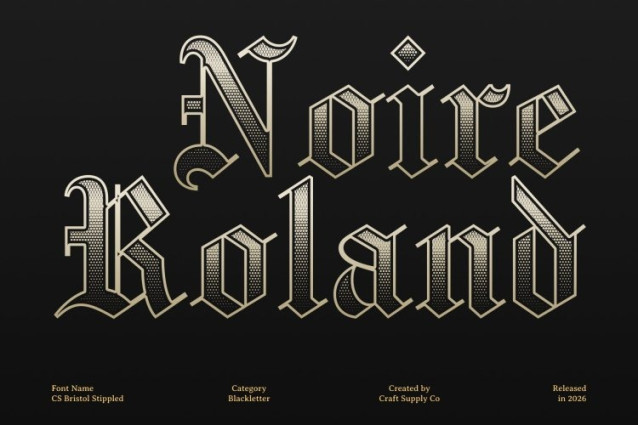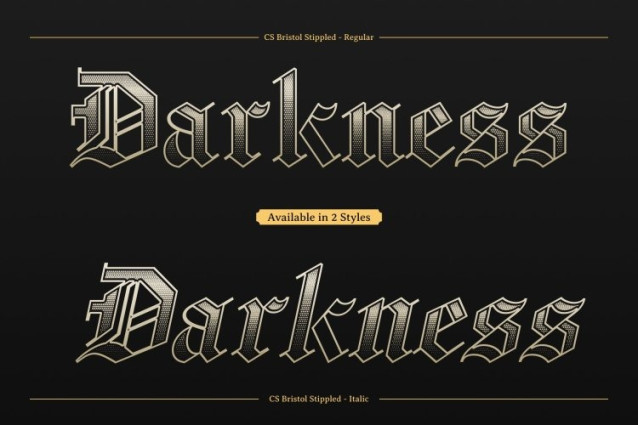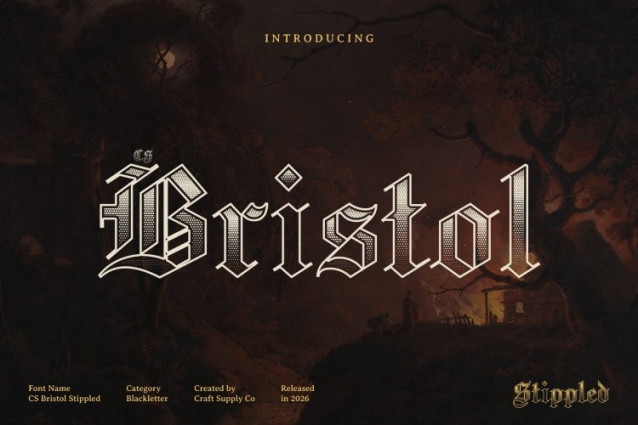
CS Bristol Stippled Font
CS Bristol Stippled Font – This is a distinguished display serif typeface that embraces the timeless elegance of the Old English blackletter style. Rooted in traditional English lettering, its sharp, bold characters convey a sense of authority and refinement. The addition of a stippled texture enriches the letterforms with subtle depth, giving the font an engraved, handcrafted appearance that enhances its historic charm.
Ornate Design with Bold Character
Defined by intricate details and commanding shapes, reflects the prestige and tradition of classic blackletter typography. Its ornate strokes and structured forms create a dramatic visual presence, while the stippled effect adds texture and artistic nuance. This combination produces typography that feels both powerful and visually sophisticated.
Historic Elegance with Textured Dimension
The carefully crafted stippled pattern amplifies the dramatic contrast and decorative edges of each character. This layered detail reinforces the font’s historical atmosphere, making the letters appear rich, expressive, and full of depth while maintaining the strong identity of traditional blackletter design.
Perfect for Formal and Heritage-Inspired Designs
This is ideal for projects that require elegance, tradition, and a sense of prestige. It works beautifully for formal invitations, certificates, heritage branding, editorial headlines, and vintage-inspired posters. With its Old English influence and textured character, this font delivers a timeless and authoritative typographic presence.